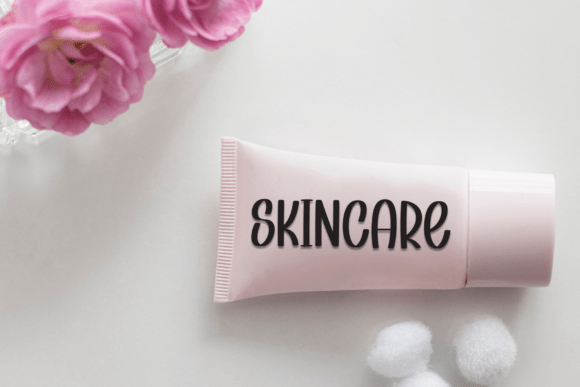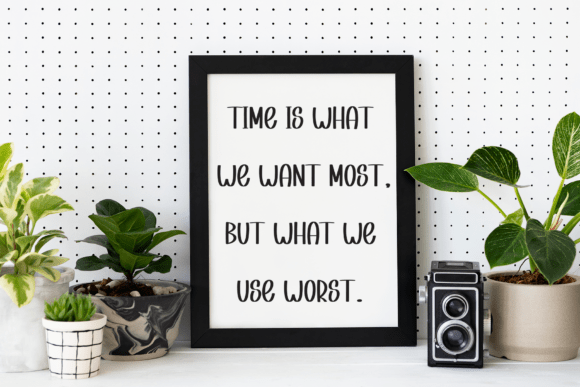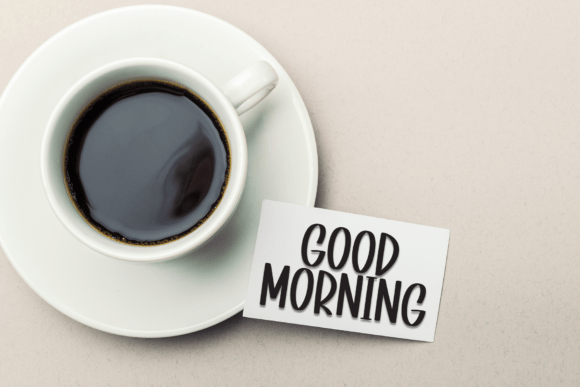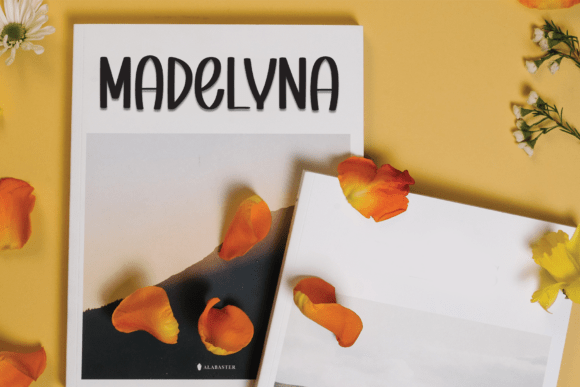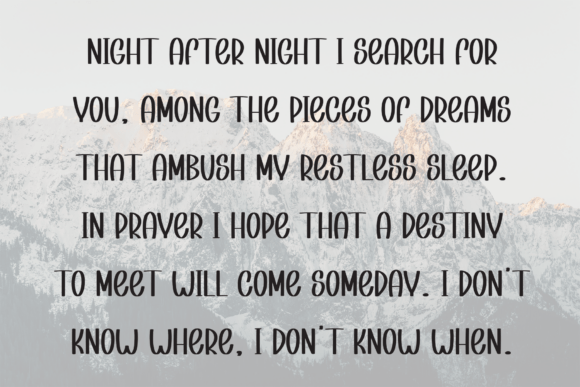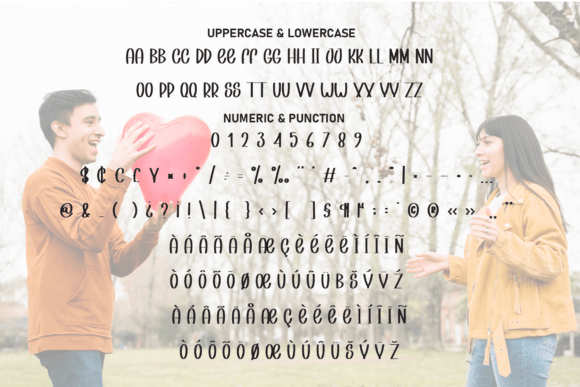
Introduction to Meet Love Font
As a designer, you’ve likely found yourself staring at a blank canvas, waiting for inspiration to strike. It’s that moment of creative paralysis, where you’re not sure what font to use, what color palette to choose, or how to make your project truly shine. But what if I told you there’s a font that can help you break through that barrier and create something truly special? Enter Meet Love Font, a stunning display font designed to bring warmth and clarity to your projects.
Meet Love Font’s balanced letterforms offer readability and charm, making every message feel genuine and inviting. Whether you’re working on a project with a transparent background or need a font that will stand out against a bold color palette, Meet Love Font is a valuable resource for designers of all levels.
Key Features of Meet Love Font
- High-quality design for creative projects: Meet Love Font is a beautifully crafted font perfect for any creative project, including graphic design, digital art, and more.
- Vector-based: Meet Love Font is a vector-based font, allowing for scalability and crisp rendering at any size or resolution.
- Unique, handwritten style: This font features a unique, handwritten style that adds a touch of personality to any design project.
Honest Review: Meet Love Font
- High-quality font styles that are perfect for logos, branding, and more
Meet Love Font
Meet Love Font is a beautiful, high-quality design resource that’s perfect for any creative project. With its transparent background, it’s easy to customize and use in a variety of applications.
Tips for Getting the Most Out of Meet Love Font
To get the most out of Meet Love Font, be sure to use it on a transparent background, which allows for easy customization and integration with other design elements. You can also experiment with different font sizes and styles to create unique and eye-catching designs.
Common Use Cases for Meet Love Font
Meet Love Font is perfect for a variety of creative projects, including wedding invitations, birthday cards, and social media graphics. It’s also great for use in branding and marketing materials, such as logos and business cards.